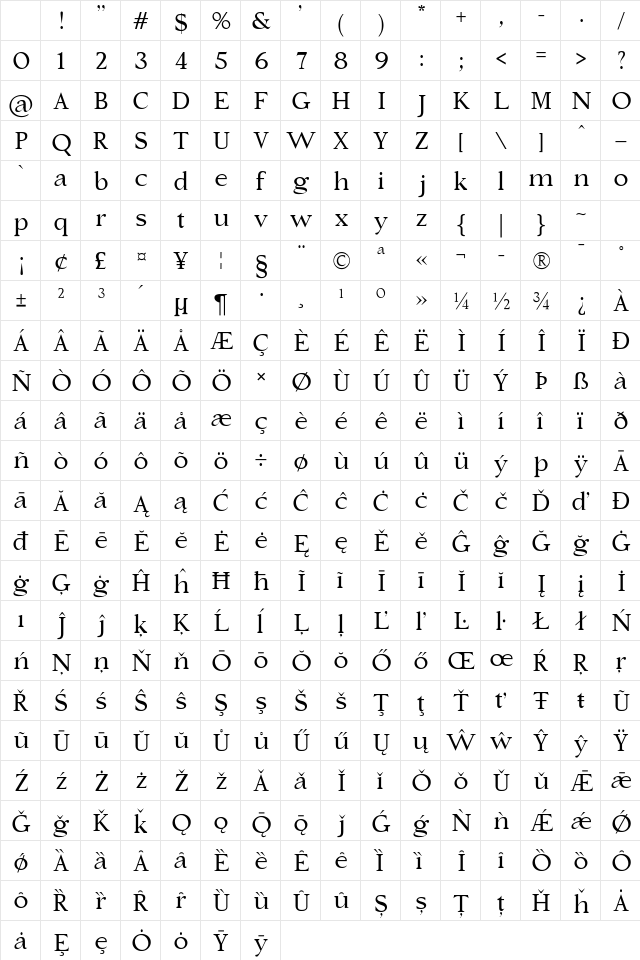
Silent Citadel Light is a composed and adaptable typeface that performs quietly and consistently across a wide range of design contexts. Its slender proportions lend an understated elegance to any composition.